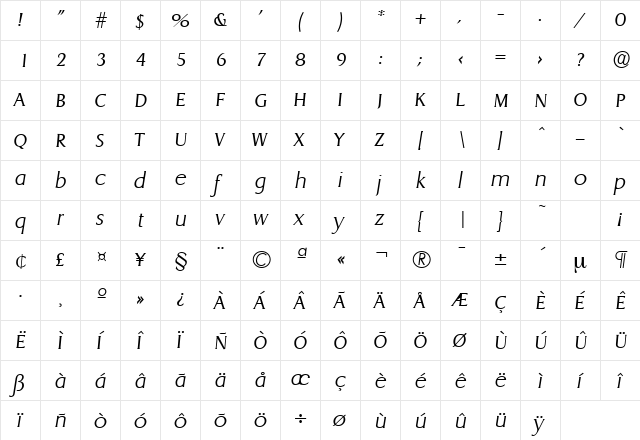
Design Context for Dragon-Serial-ExtraLight Typeface
Dragon-Serial-ExtraLight takes a measured approach to typography — its balanced proportions and neutral character make it a reliable workhorse for both digital and print work. The dynamic lean of this cut emphasises speed and emphasis in any layout. The delicate stroke weight brings airiness and refinement to layouts.